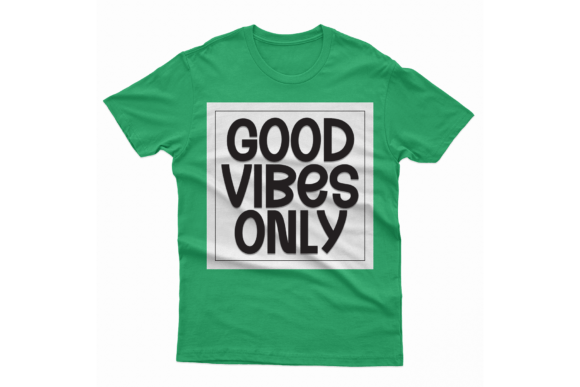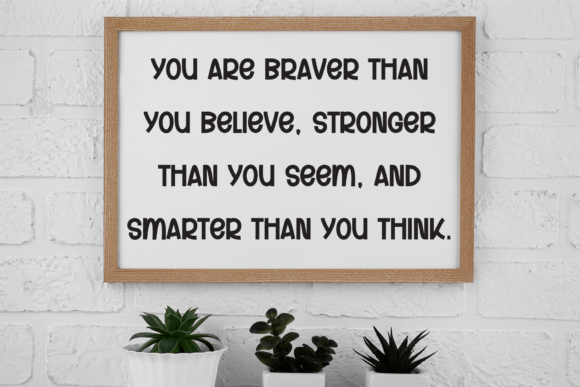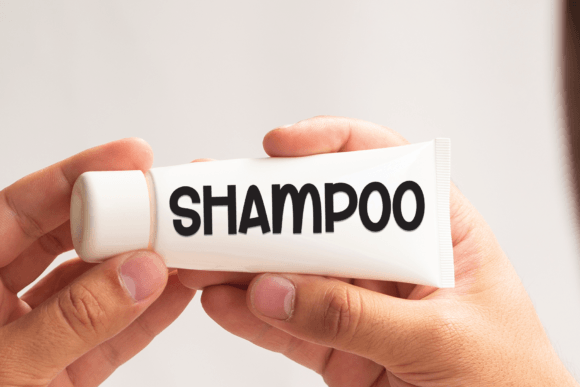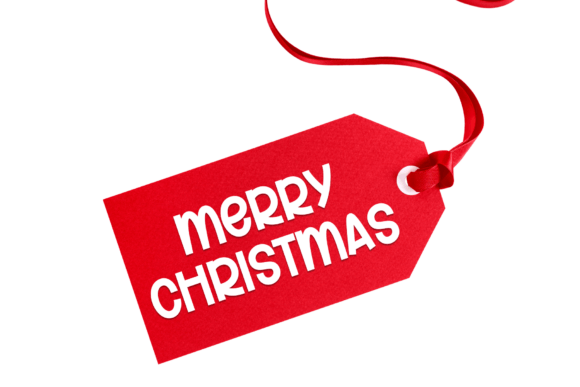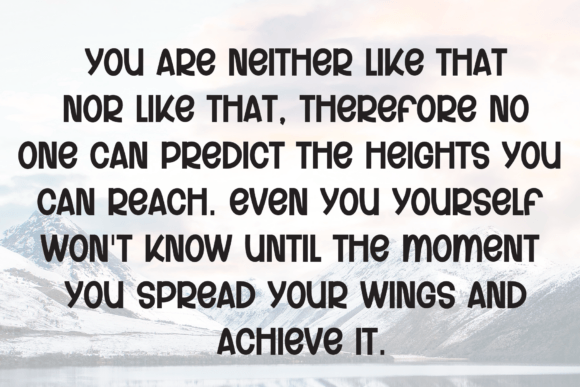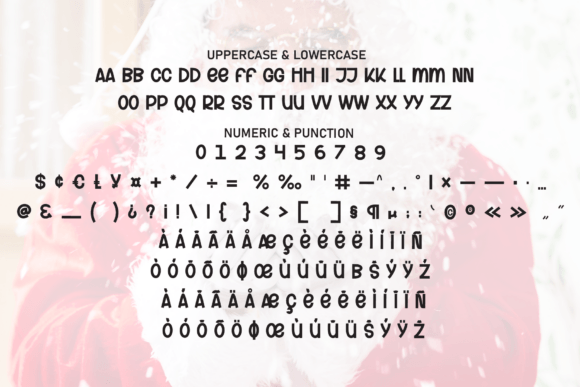
Introduction to Santa Snowy Font
As a designer, there’s nothing quite like the thrill of creating something new and special for a client or a personal project. But sometimes, that perfect font can be hard to find – until now. I still remember the day I stumbled upon the Santa Snowy Font, and I knew I had to share it with the world.
This delightful handwritten display font is more than just a pretty face; it’s a design resource that adds a dash of charm and excitement to any project. With its tender sweetness and playful merriment, the Santa Snowy Font is guaranteed to bring a smile to the faces of your clients and customers.
Whether you’re working on a wedding invitation, a greeting card, or any other creative project, this font is a valuable addition to your design toolkit. Plus, with a transparent background and high-quality design, you can trust that your creations will look their absolute best.
Key Features of Santa Snowy Font
- Unique and festive design, perfect for winter-themed creative projects
- Single-layer design, suitable for use on various backgrounds
- Perfect for adding a touch of holiday magic to your design projects
Honest Review: Santa Snowy Font
I recently had the chance to work with the Santa Snowy Font for a creative project and I have to say, it was a great experience. This font is a fantastic resource for anyone looking to add a touch of winter wonder to their design.
Overall, I was really impressed with the Santa Snowy Font. It’s a great addition to any design resource library and can add a lot of visual interest to a project. I would definitely recommend it to anyone looking for a high-quality, free font.
Some potential uses for this font include:
- Designing holiday-themed graphics and cards
- Creating winter-themed websites and landing pages
- Adding a touch of whimsy to a creative project
Getting the Most Out of Santa Snowy Font
To get the most out of the Santa Snowy Font, experiment with different font sizes, colors, and combinations with other design elements. You can also use the font in conjunction with other design resources to create a cohesive and visually appealing design.
The Santa Snowy Font is perfect for winter-themed designs, holiday cards, and festive invitations. You can also use the font in a variety of other creative projects, such as blog posts, social media graphics, and marketing materials.